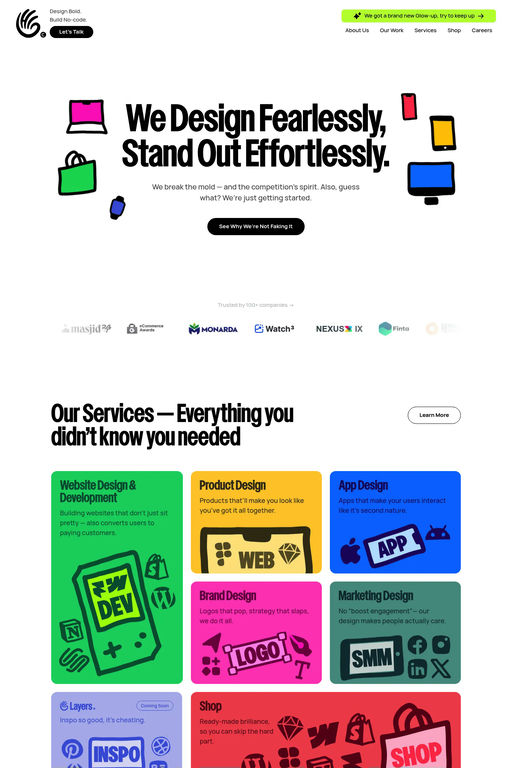
Century Gothic is a sans-serif typeface from Monotype.
Century Gothic™ is based on Monotype 20th Century, which was drawn by Sol Hess between 1936 and 1947. Century Gothic maintains the basic design of 20th Centu...
A1 features 1 website using Century Gothic. It leans towards Fun, Hand-drawn, and Colourful design styles, and it’s most often built with Framer.